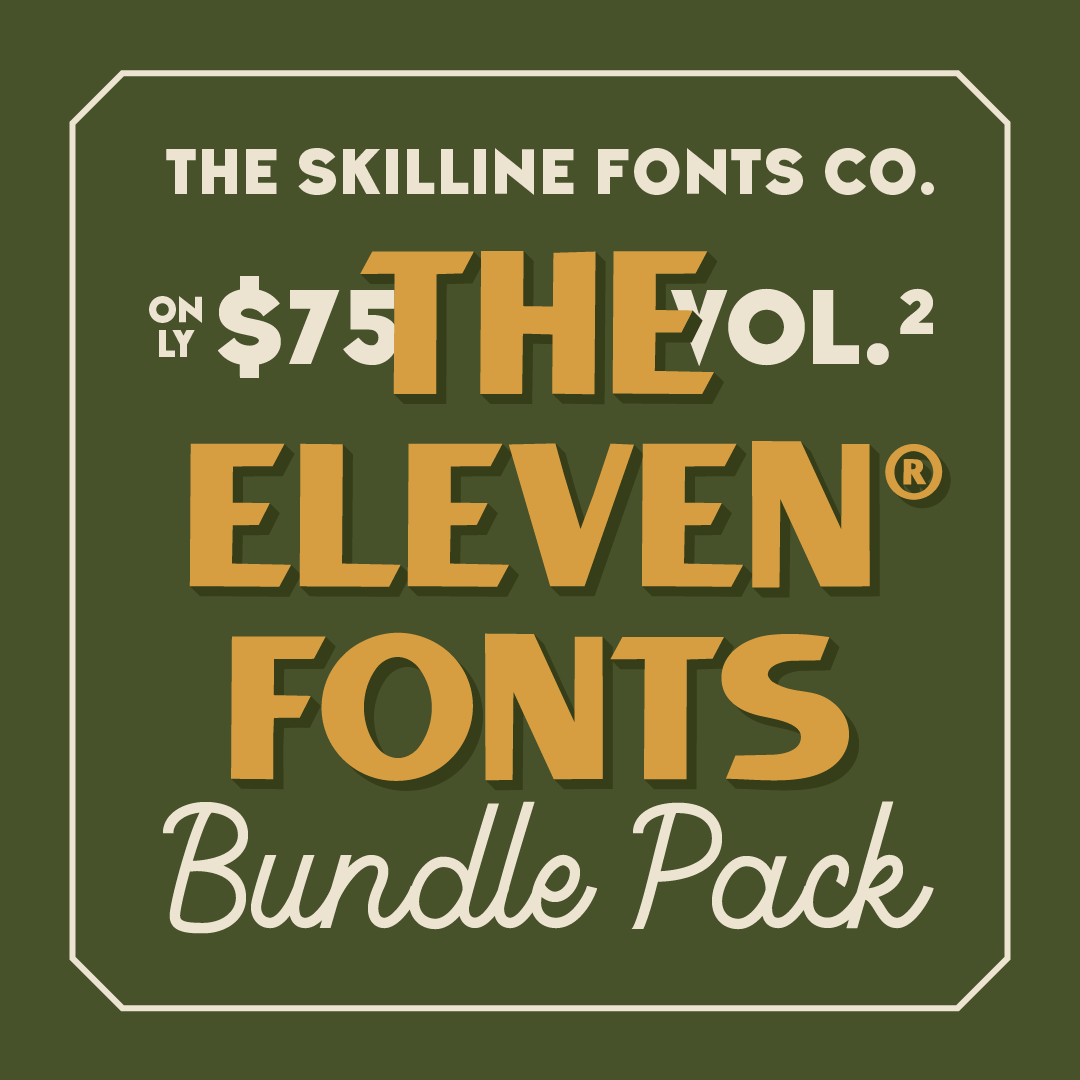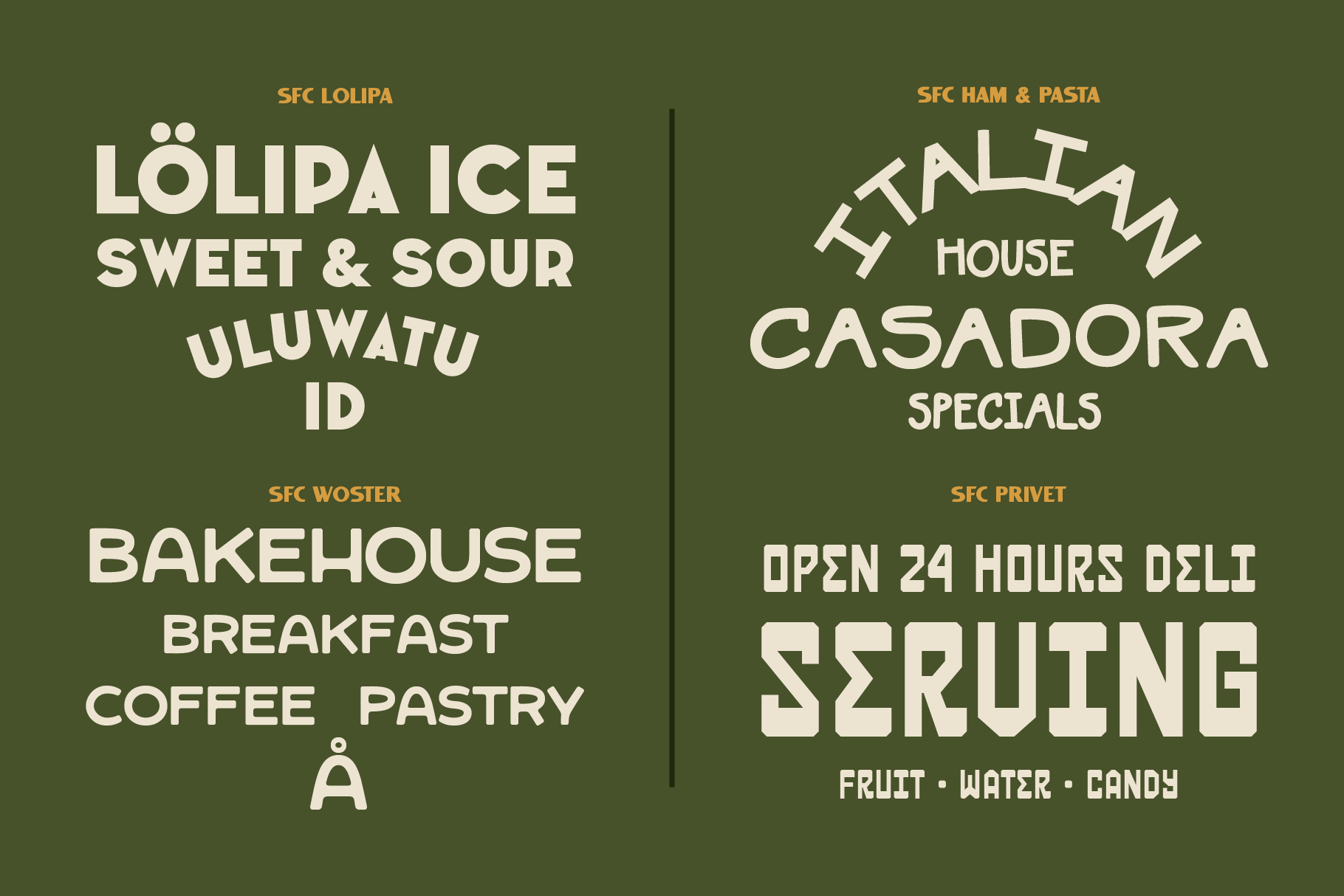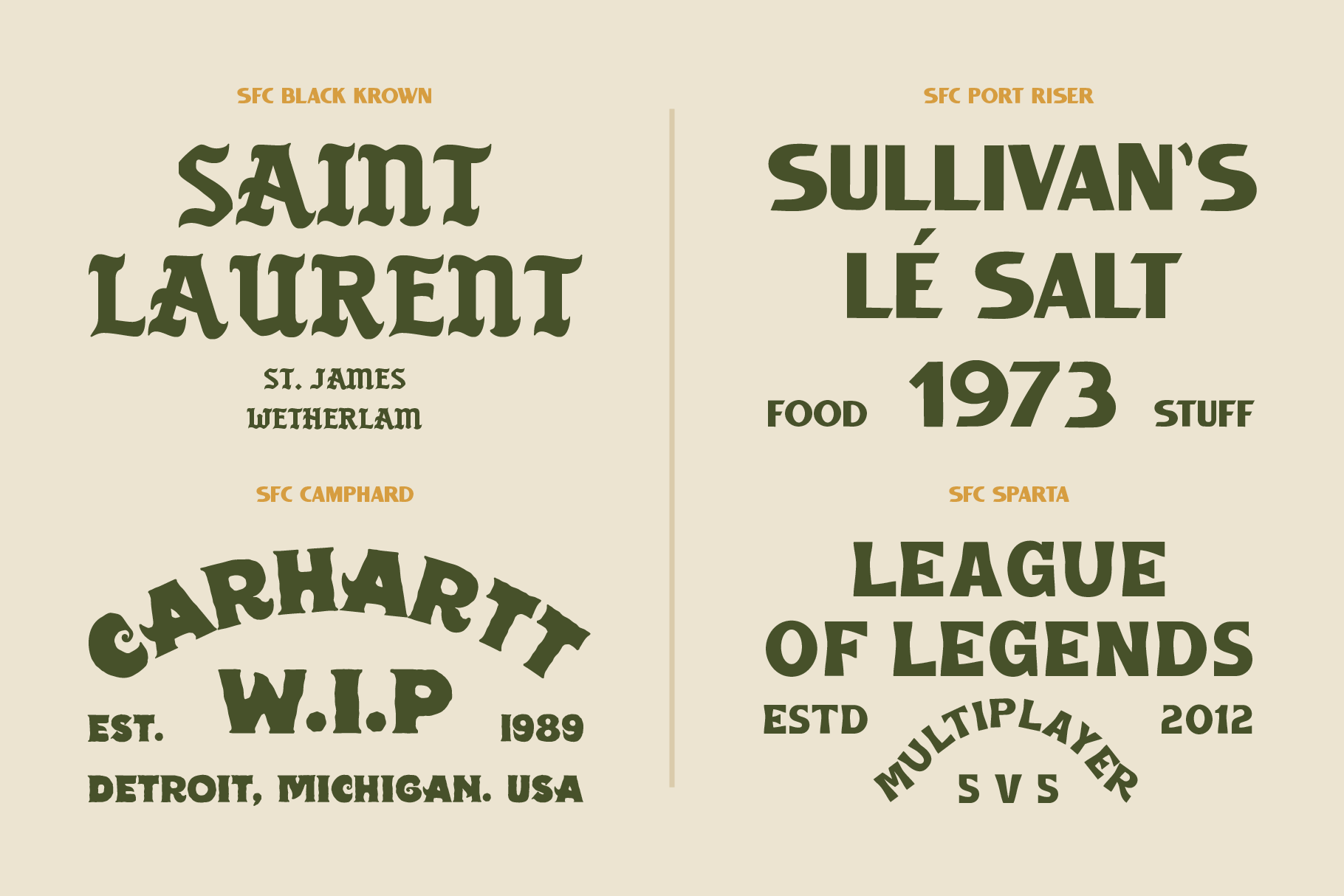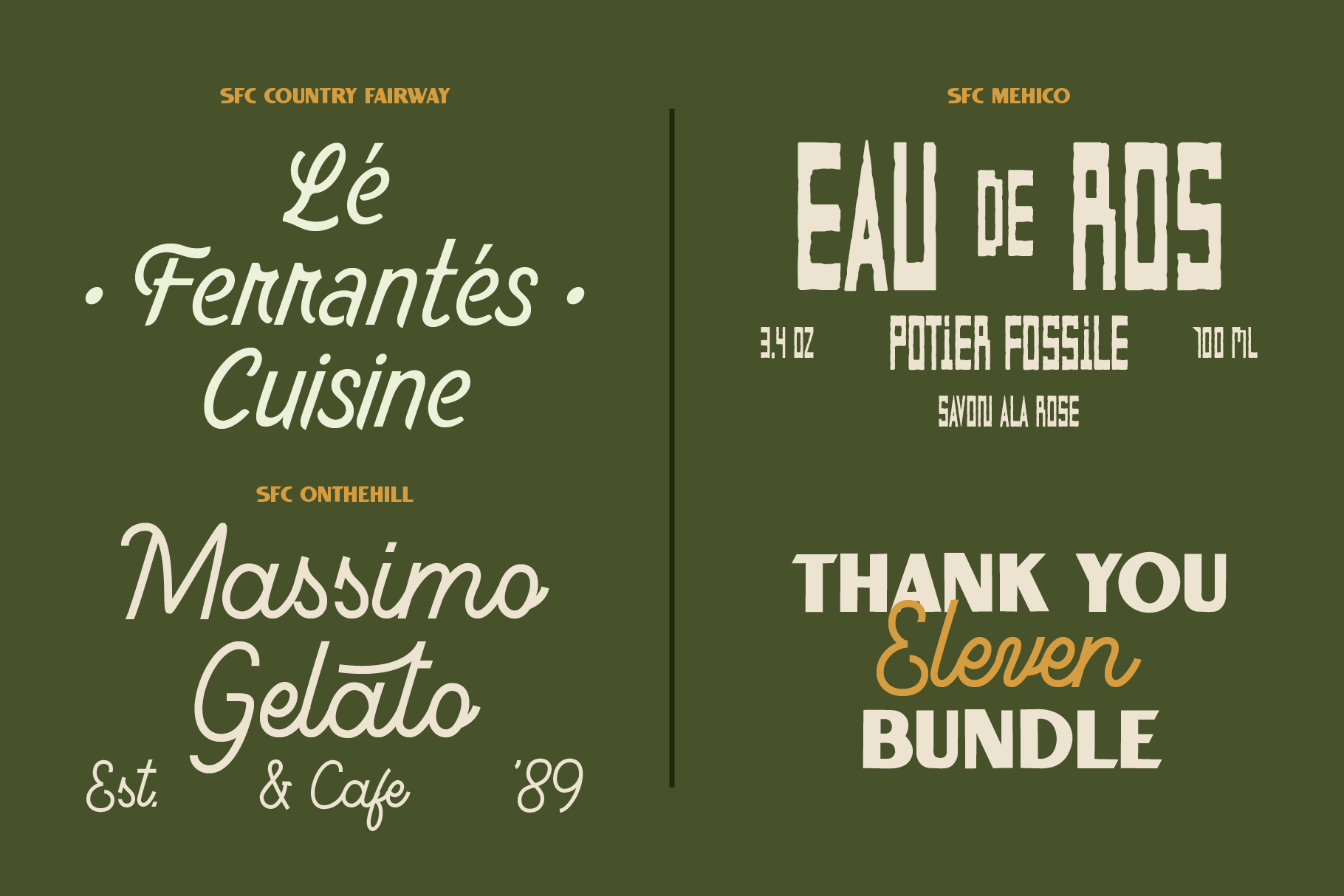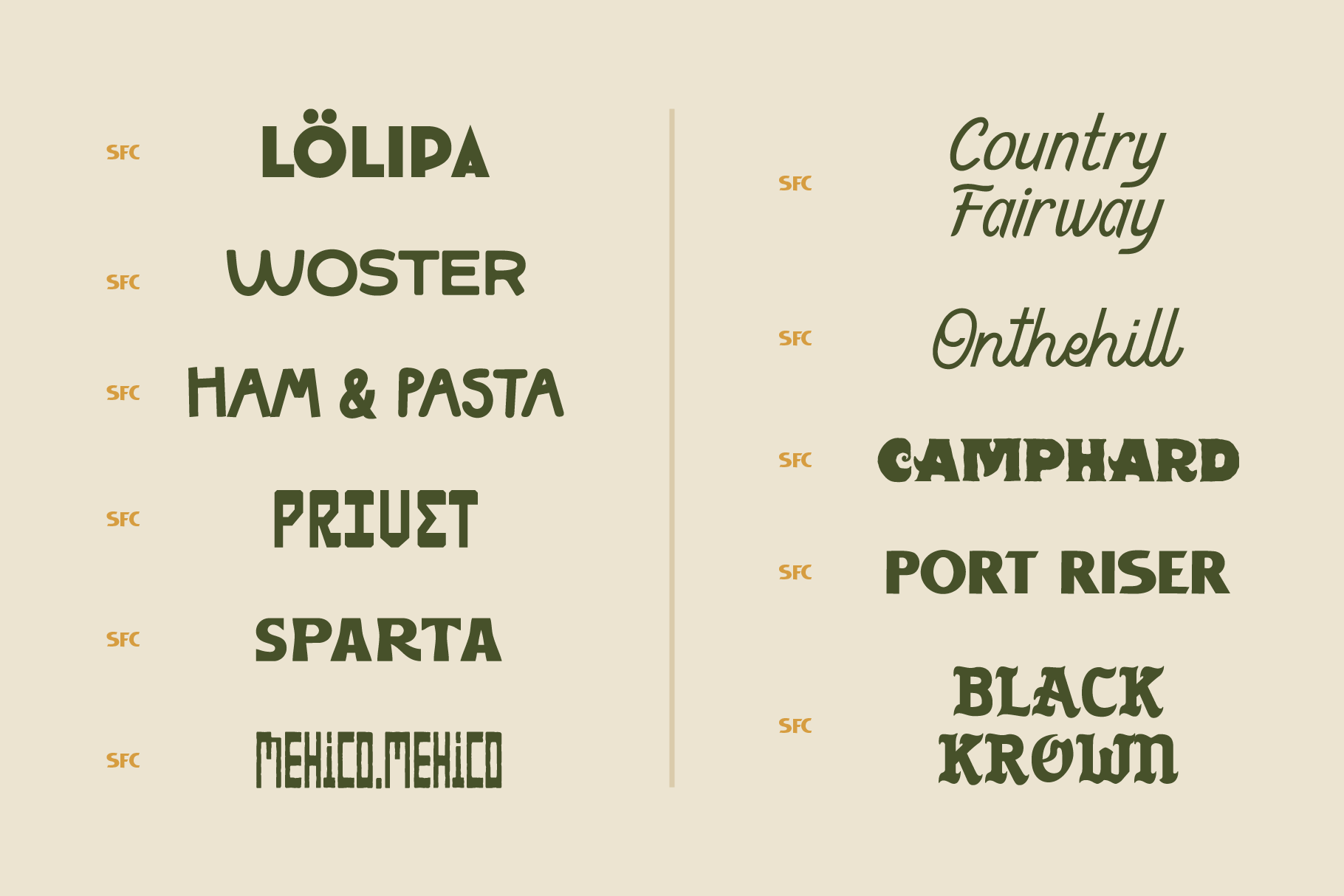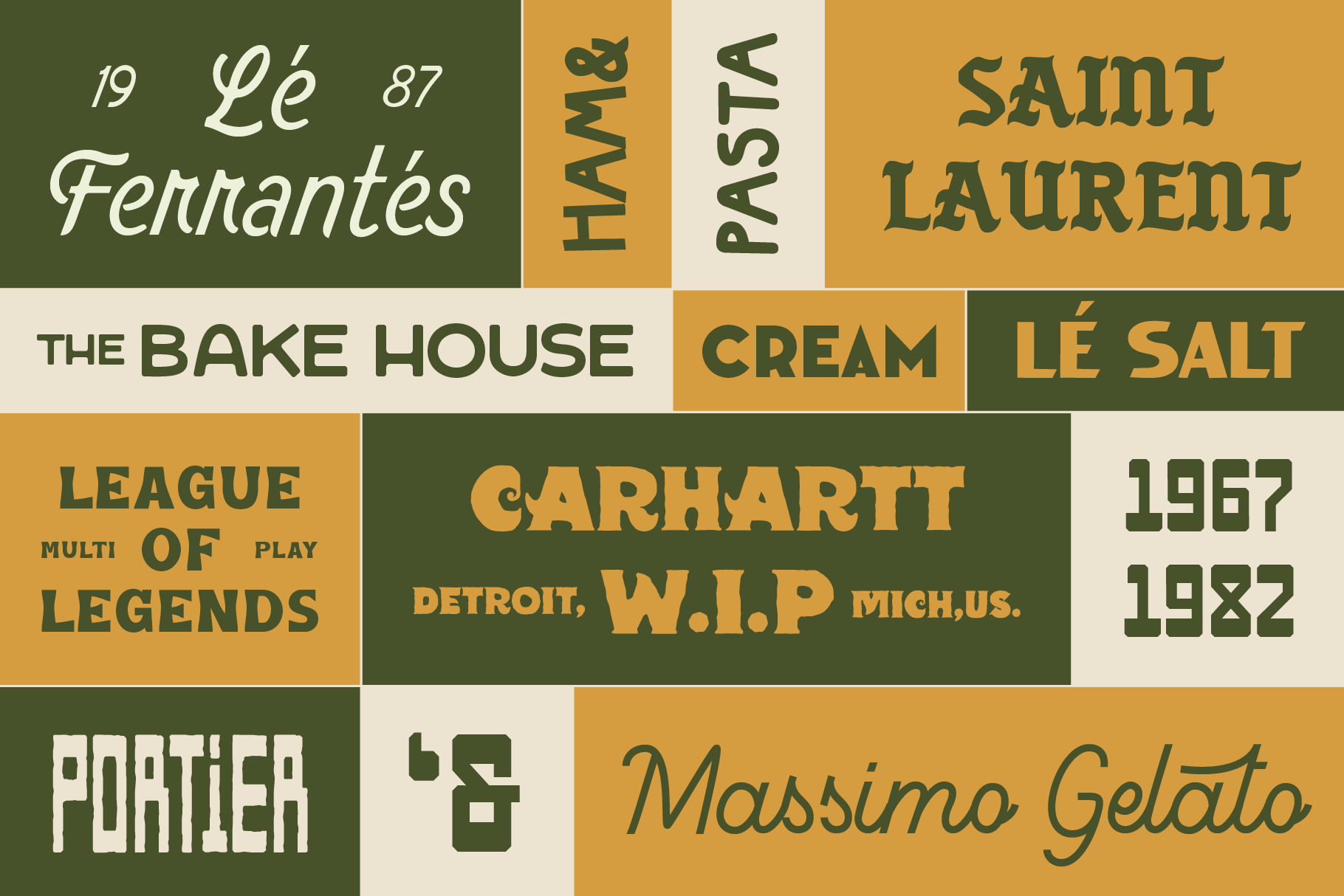
The Eleven Fonts Bundle Vol. 2
Expand your creative library with The Eleven Fonts Bundle Vol. 2, a curated collection of eleven handcrafted typefaces designed to bring warmth, personality, and timeless character to modern branding.
Inside this bundle you'll find a versatile mix of vintage display fonts, expressive scripts, bold lettering, and classic blackletter styles that work beautifully across branding, packaging, editorial layouts, signage, and promotional design. Each typeface was originally released as an individual font and carefully selected to create a collection that feels cohesive while giving you plenty of creative flexibility.
Whether you're building a café identity, designing artisan packaging, creating restaurant menus, crafting boutique branding, or producing editorial headlines, this bundle provides a wide range of styles that help your work stand out with confidence.
* Vintage Display, Script & Blackletter Collection
* Handcrafted Letterforms
The Eleven Fonts Bundle Vol. 2 is a curated collection of eleven handcrafted typefaces, featuring a mix of vintage display fonts, expressive scripts, bold lettering, and classic blackletter styles. This bundle includes OTF, TTF, WOFF, and WOFF2 formats, offering uppercase, lowercase, numerals, punctuation, and multilingual support.